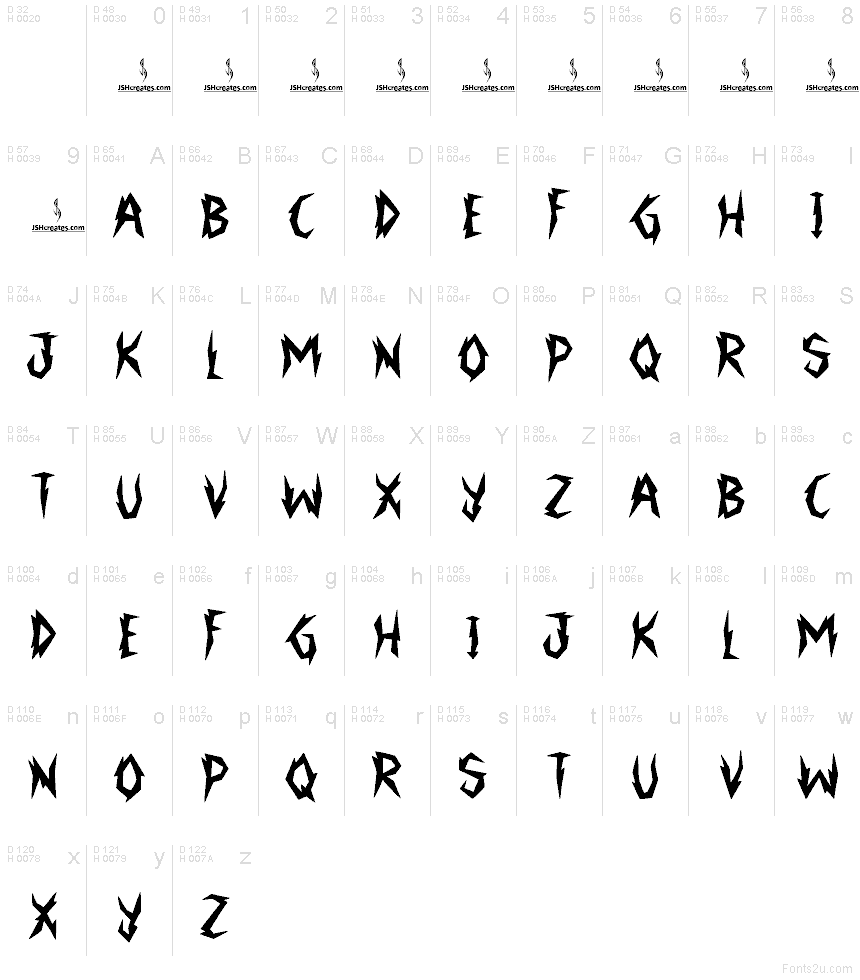
Broken Up
Broken Up font by JSH creates is a free modern gothic display font. Built around jagged, shard-like strokes, it looks carved from black glass—angular, high-contrast, and slightly feral. The letters lean and slice with uneven rhythm, giving headlines a kinetic snap while keeping forms surprisingly legible at a glance.
Using Broken Up, you get gritty drama without clutter—great for horror posters, metal or punk logos, skate brands, game titles, Halloween promos, album art, and zines. This free font thrives oversized, with tight tracking to intensify the bite. Pair it with a clean grotesk or geometric sans for body copy to let those fractured edges do the shouting.